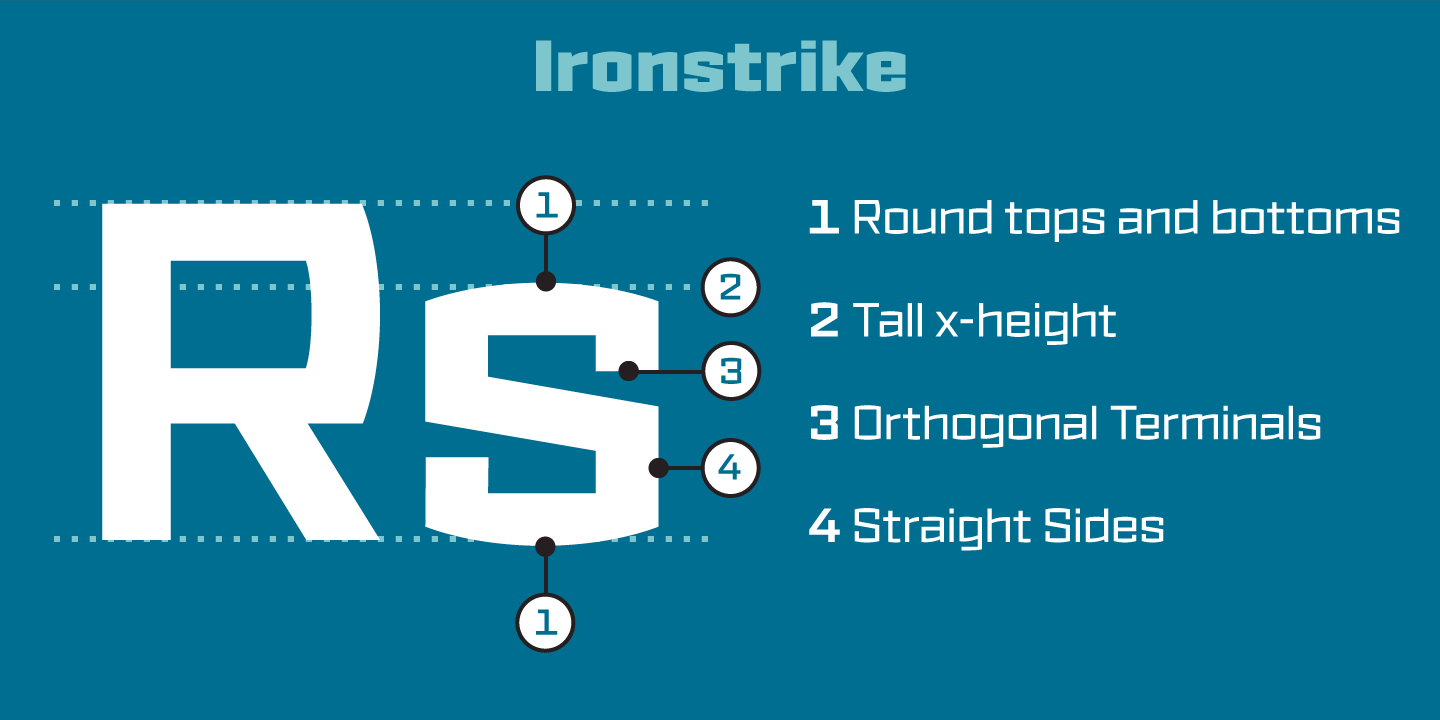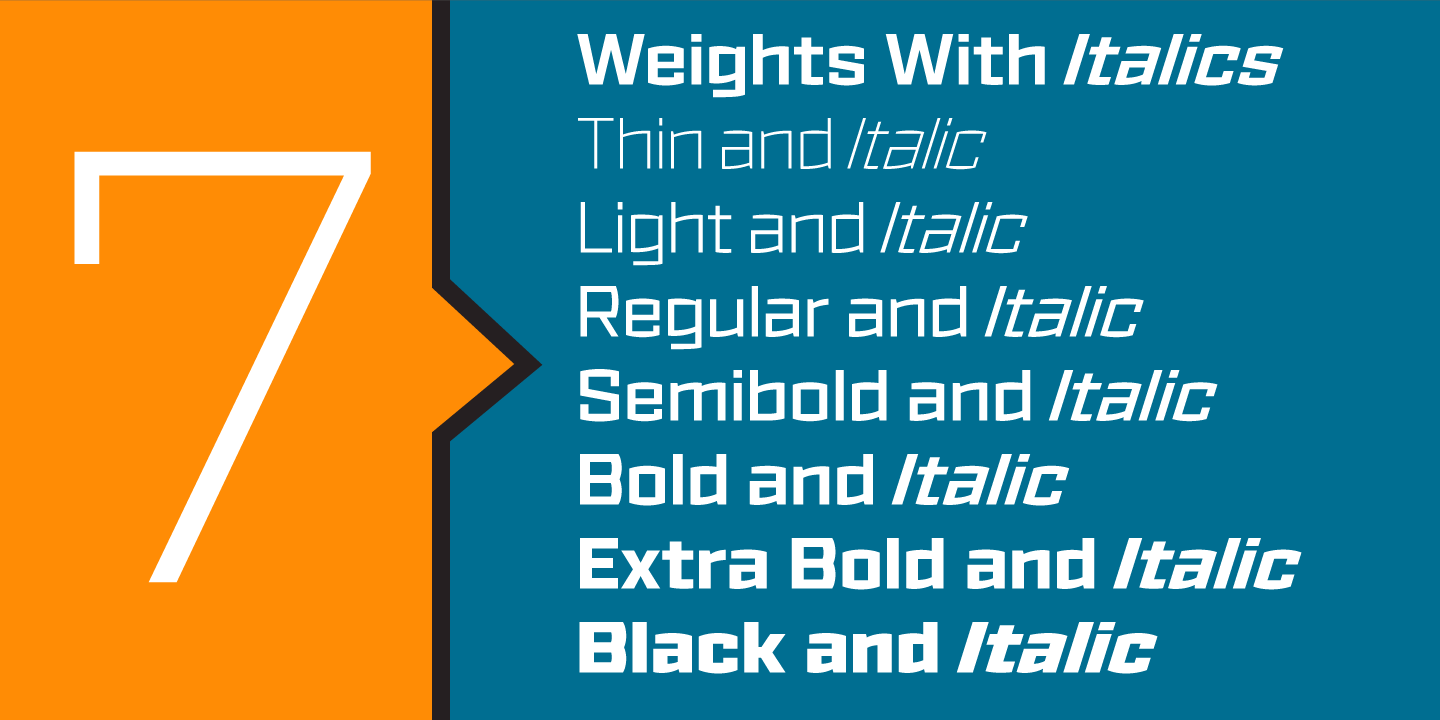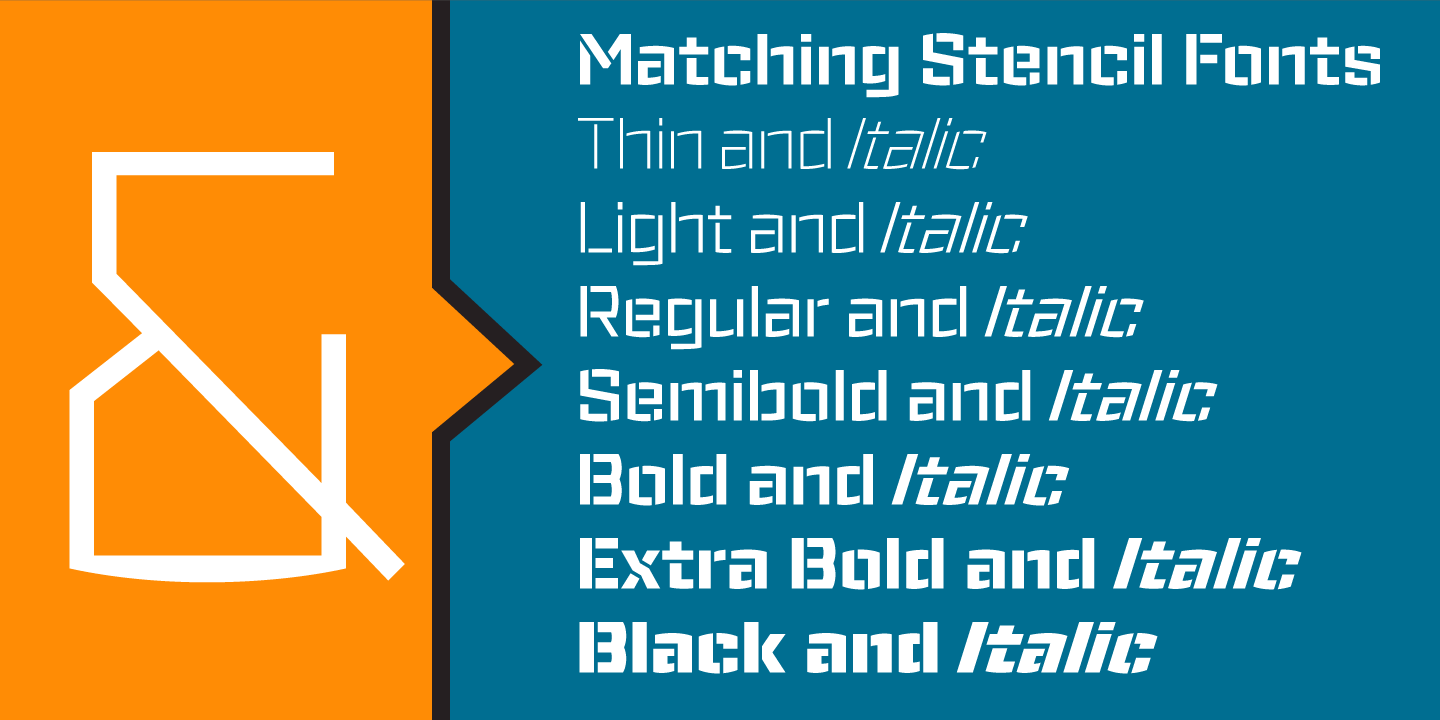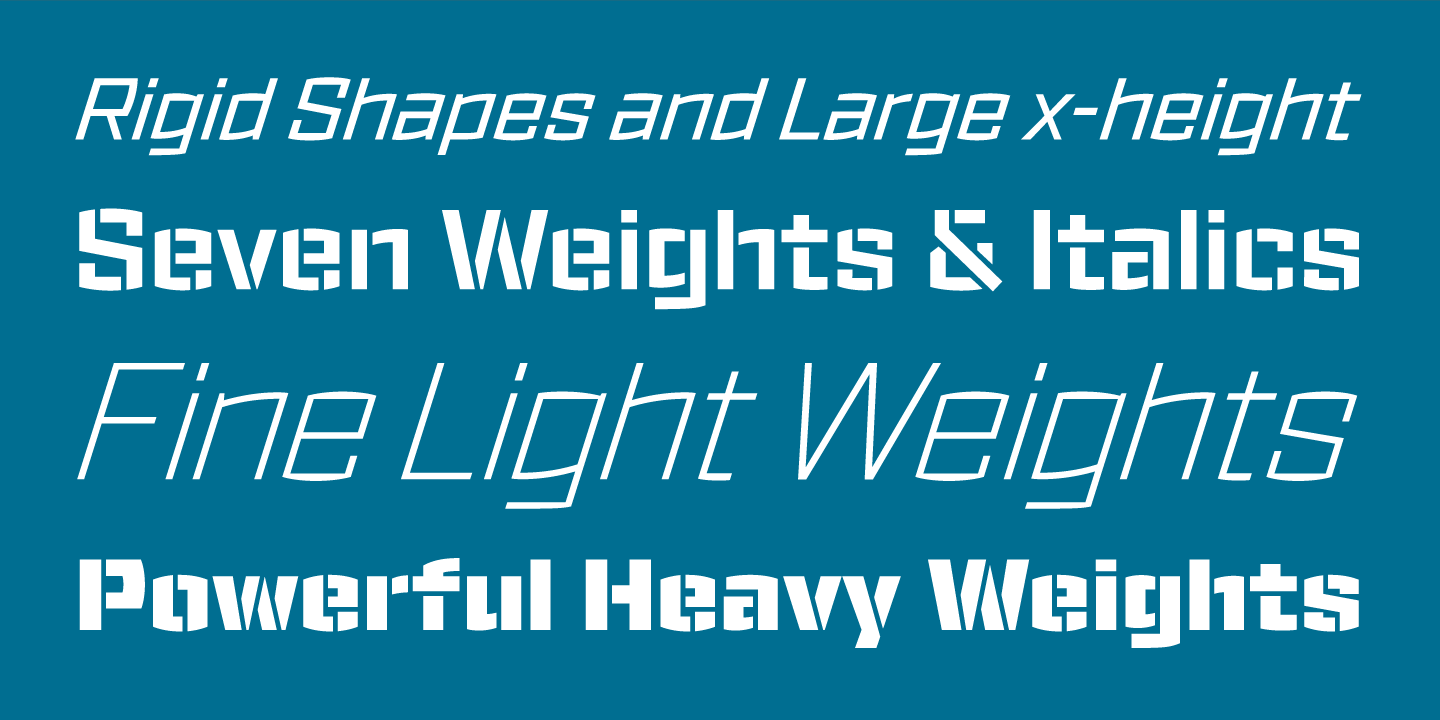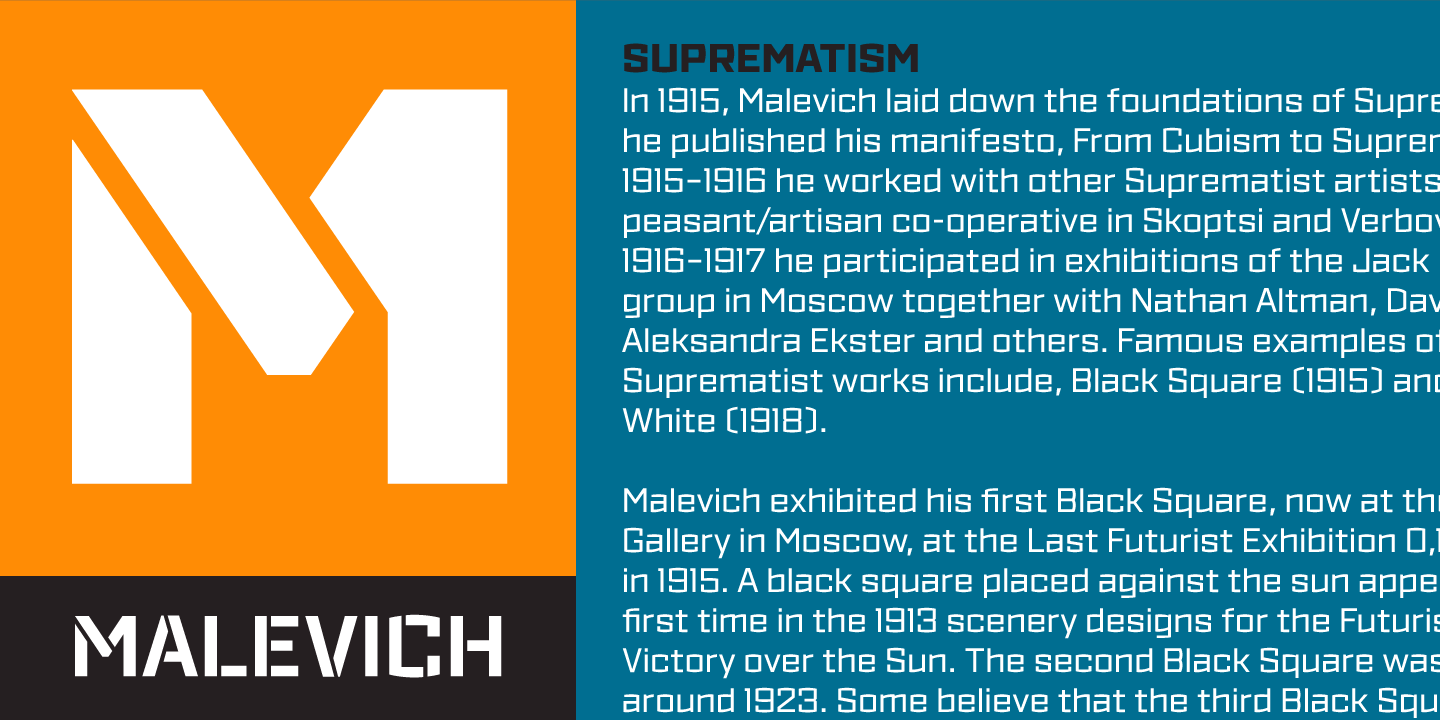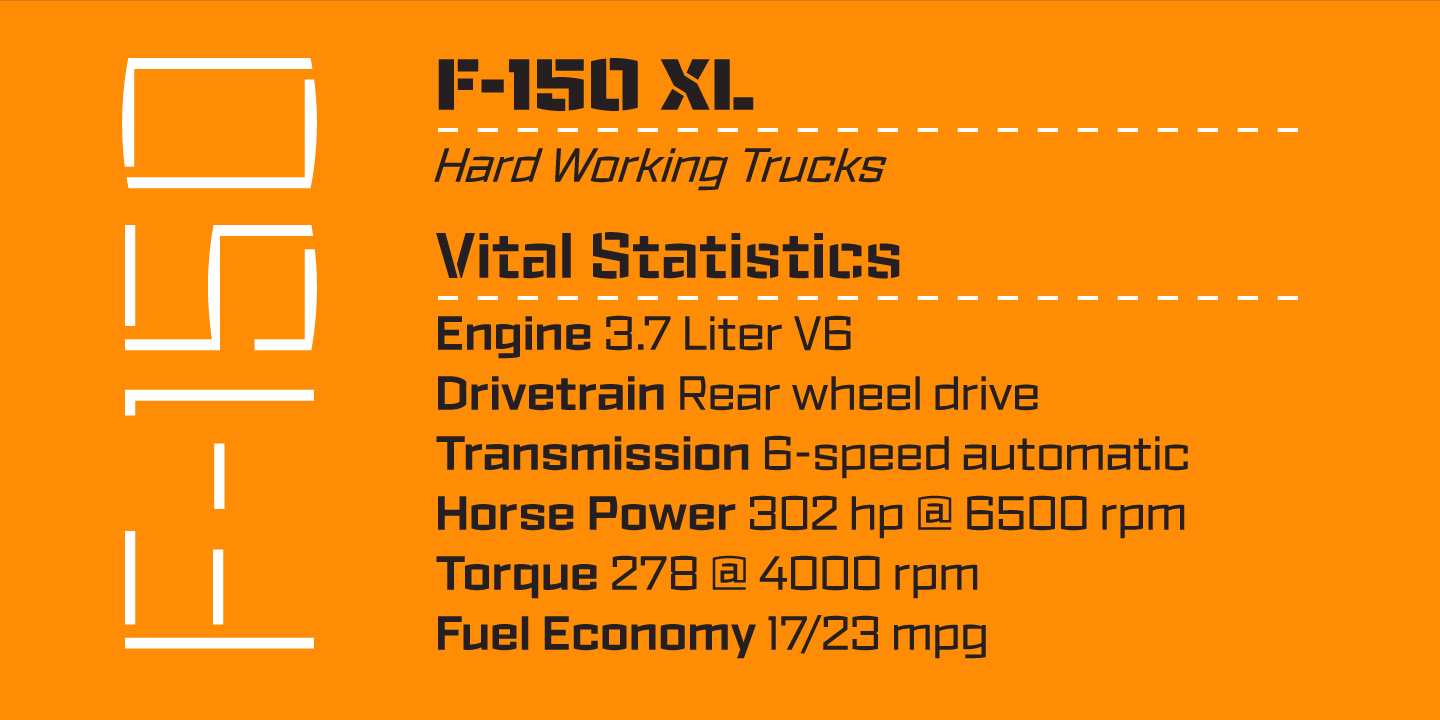
Ironstrike pays homage to industrial and constructivist lettering. Rigid shapes and tall lowercase letters evoke strength and technology. Seven weights with matching italic fonts step up to your tough design challenges. Fine light weights emphasize white…